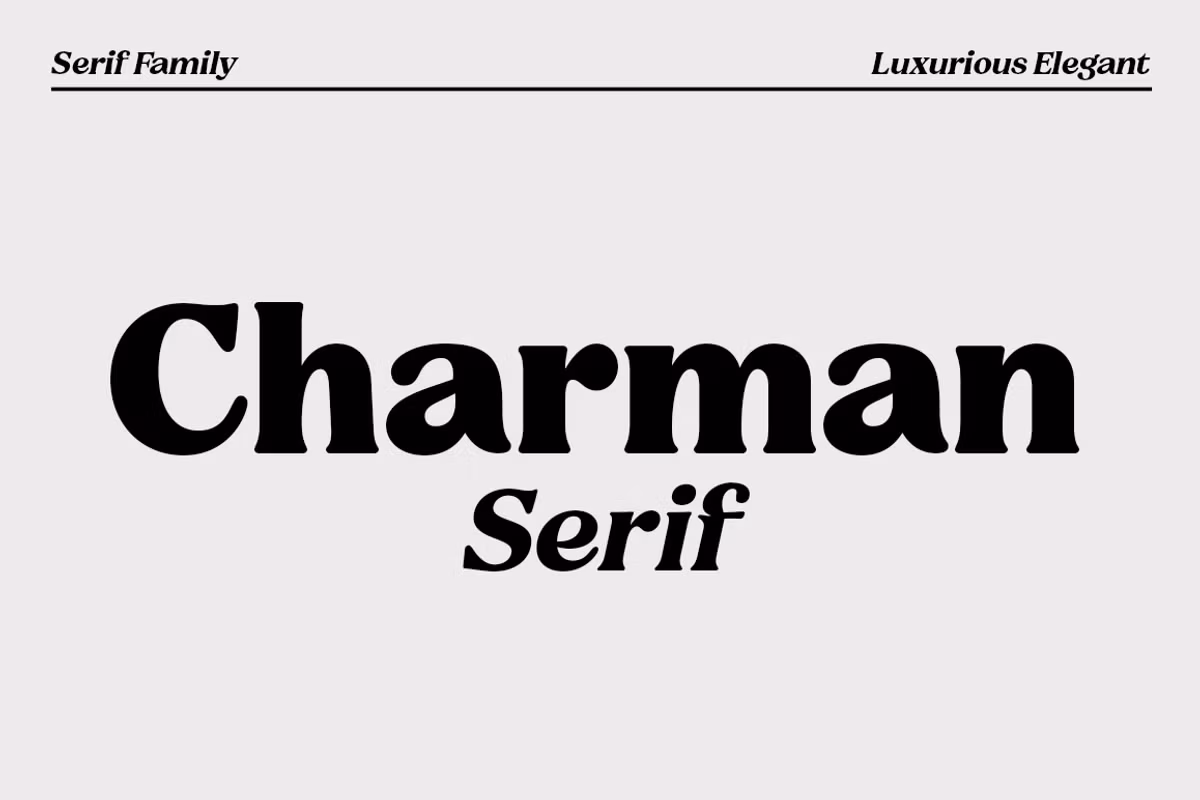
Charman Serif Font Family Free Download is a sophisticated and versatile typeface collection designed to elevate both classic and modern design projects. Featuring multiple weights and styles, this font family is ideal for editorial layouts, branding, book covers, logos, websites, and elegant packaging.
With its refined serifs, balanced proportions, and smooth readability, Charman effortlessly combines tradition with contemporary appeal. It works beautifully in both headlines and body text, offering flexibility and cohesion across various design elements.
Whether you're creating a chic magazine spread or a timeless brand identity, Charman Serif Font Family Free Download provides the professional edge your work deserves. Try it in personal projects now, and be sure to purchase a commercial license for full use in business or client-based designs.